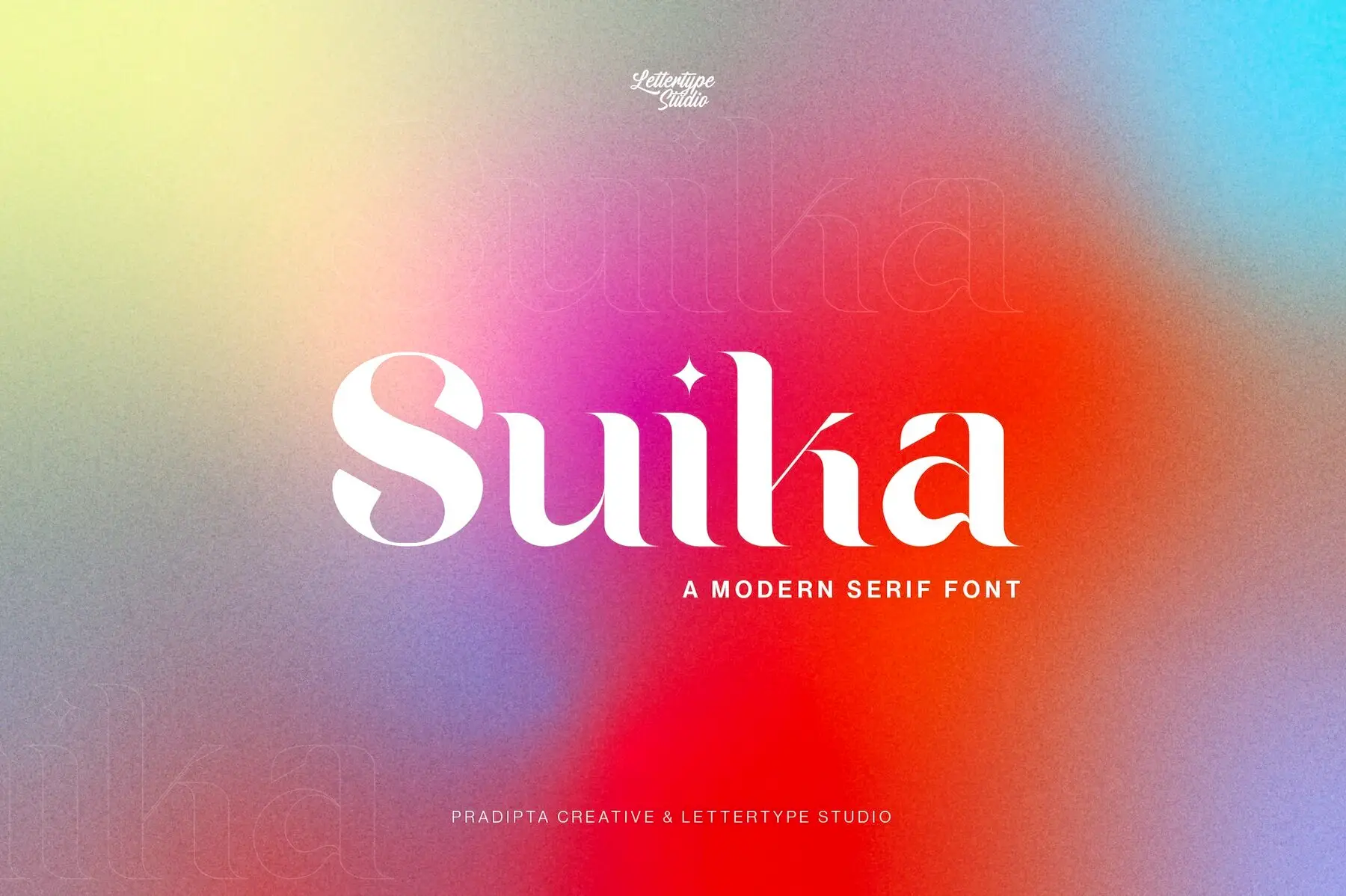
Suika Font
Suika
Suika is a versatile serif font that seamlessly balances modern, classic, and vintage aesthetics. Ideal for a wide range of projects such as logo design, branding, fashion apparel, signage, posters, and even wedding invitations, Suika adds a touch of elegance and refinement. Designed to combine the best of serif styles, this font elevates your projects with its polished and beautiful finish.Suika Serif Font